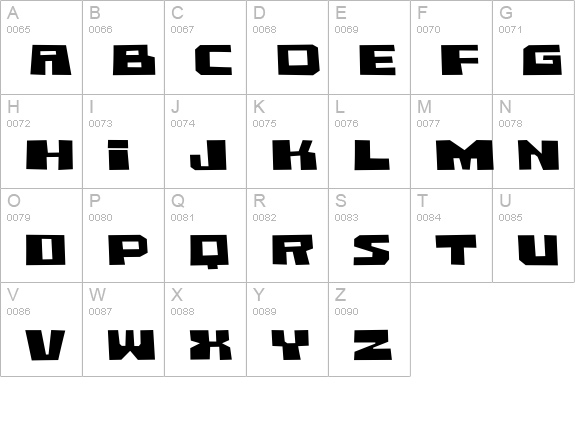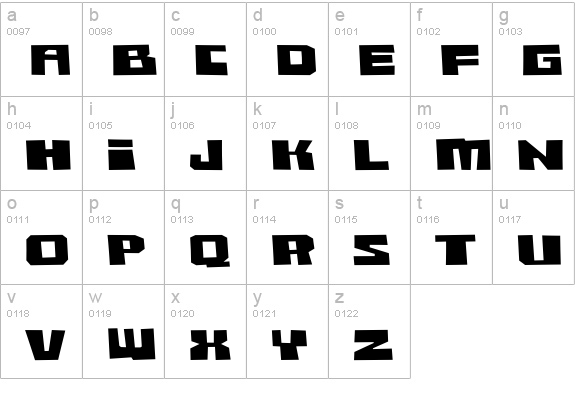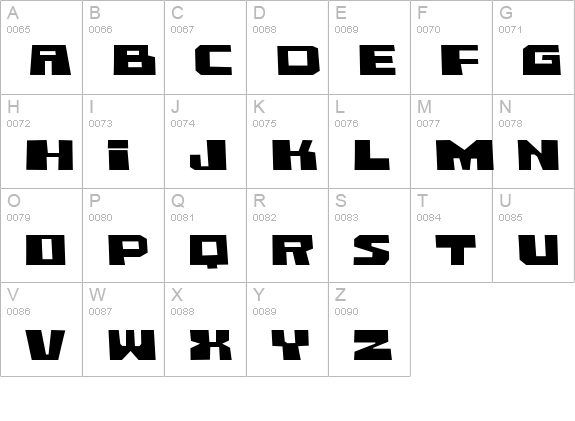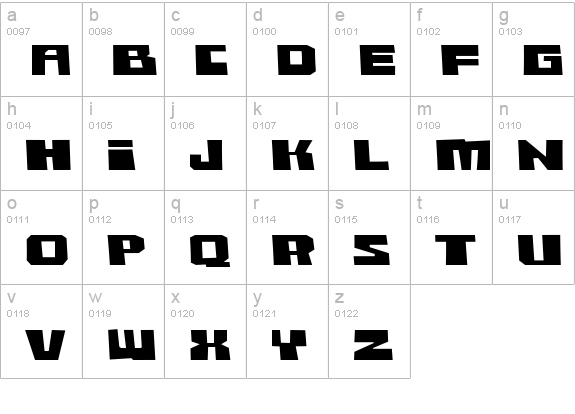
Buster-BoldExtended Font Details
Introducing Buster-BoldExtended font, a bold and powerful typeface that commands attention with its distinct and dynamic presence. With its extended letterforms and strong geometric shapes, Buster-BoldExtended exudes confidence and strength, making it the perfect choice for headlines, titles, and branding projects that demand a bold statement. This versatile font is designed to make a lasting impression, whether used in print or digital media. Its clean lines and sharp edges give it a modern and sophisticated look that is sure to stand out in any design. Buster-BoldExtended is ideal for posters, banners, logos, and any project that requires a touch of boldness and impact. And the best part? Buster-BoldExtended is available for free download at FontsMarket.com, making it accessible to designers and creatives looking to add a touch of boldness to their projects without breaking the bank. Don't miss out on this opportunity to elevate your designs with the striking aesthetics of Buster-BoldExtended font. Download it now and let your creativity shine!